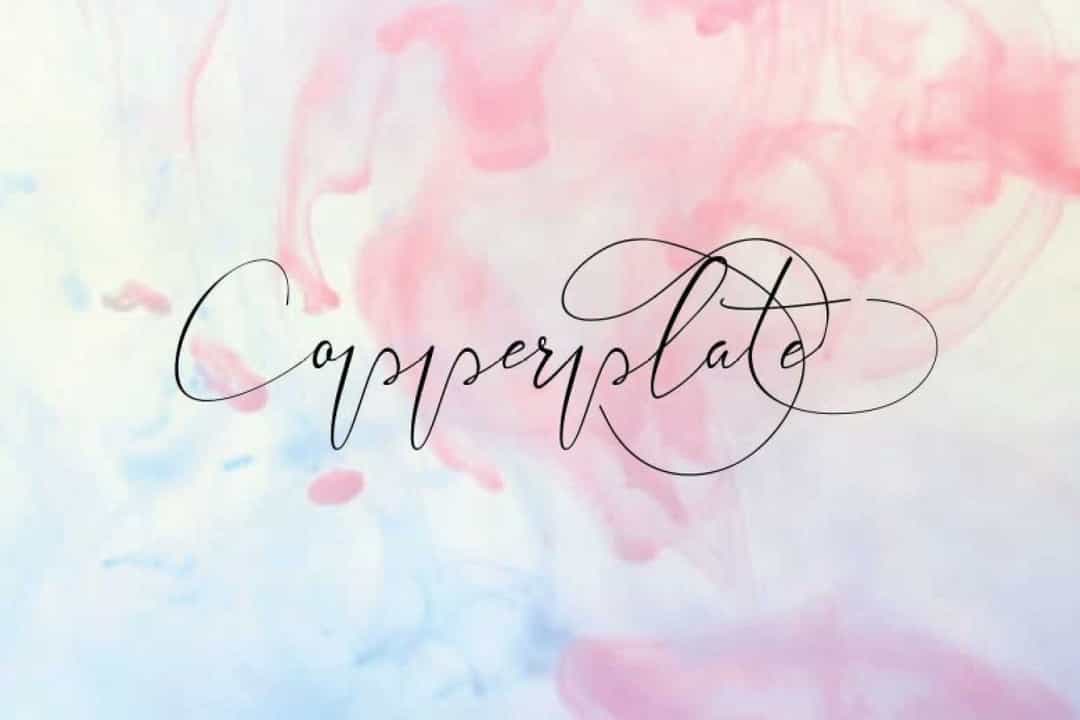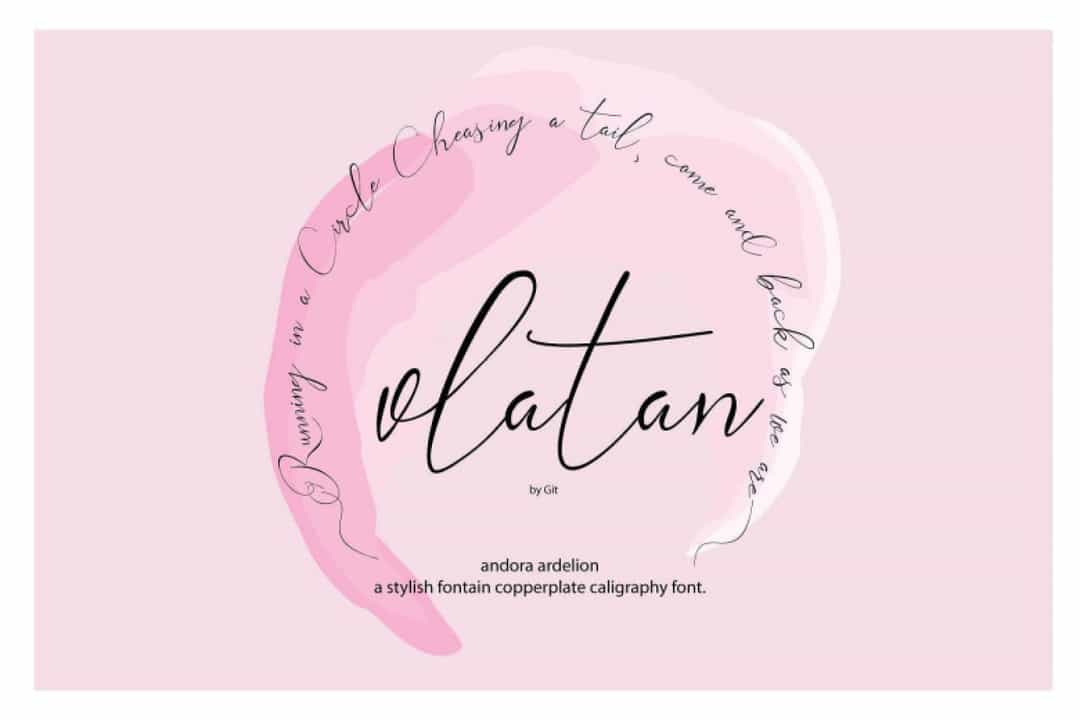
Andora Ardelion is a perfect copperplate calligraphy font that is developed by GIT Company. If you wish to have the authentic feel of sophistication and the contemporary trend of designs, Andora Ardelion was indeed designed for you.